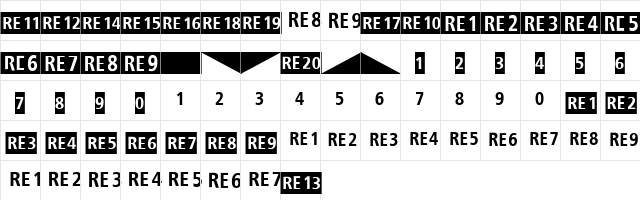
TransitLinie-RE Regular
Design Context for TransitLinie-RE Typeface
TransitLinie-RE takes a measured approach to typography — its balanced proportions and neutral character make it a reliable workhorse for both digital and print work.